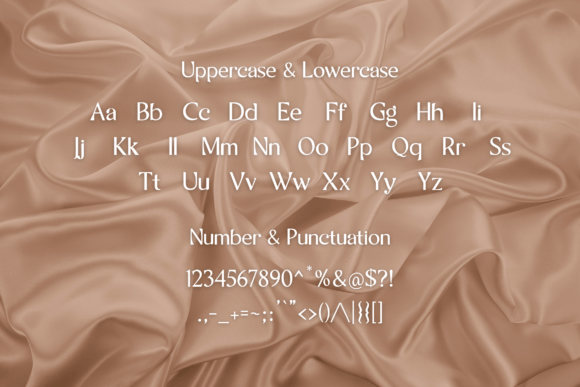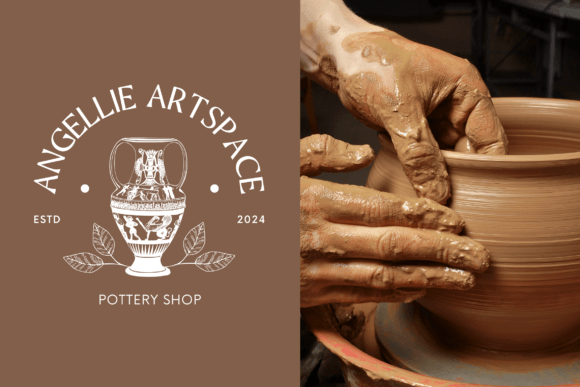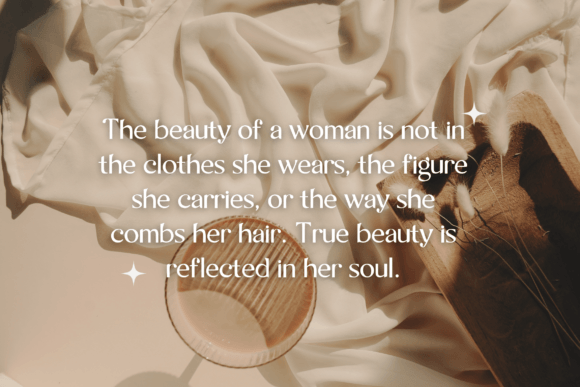
Introducing Angellie: The Epitome of Elegance in Modern Display Fonts
In the realm of typography, few fonts manage to capture the essence of elegance and sophistication as effectively as Angellie. This stylish, modern display font is a masterpiece of design, boasting sleek lines and graceful curves that make it an ideal choice for high-end branding, editorial designs, and luxury packaging. With Angellie, every letter is not just a character, but a work of art, designed to elevate your projects to new heights of refinement and charm.
The Design Philosophy Behind Angellie
Angellie was crafted with a clear vision: to create a font that embodies the perfect blend of modernity and classic elegance. Its design is characterized by a meticulous attention to detail, ensuring that each letterform is not only aesthetically pleasing but also highly legible. The font’s sleek lines and fluid curves work in harmony to create a sense of movement and grace, making Angellie a versatile choice for a wide range of design applications.
Applications of Angellie: Where Elegance Meets Versatility
One of the key strengths of Angellie is its versatility. This modern display font can be seamlessly integrated into various design projects, including:
- High-End Branding: Use Angellie to create luxurious brand identities that exude sophistication and elegance. From logos to packaging, Angellie can help elevate your brand’s visual presence.
- Editorial Designs: Add a touch of refinement to your editorial projects, such as magazines, newspapers, and digital publications. Angellie’s stylish letterforms are sure to capture the attention of your readers.
- Luxury Packaging: Make a lasting impression with your product packaging. Angellie’s elegant design makes it perfect for high-end product labels, boxes, and promotional materials.
Why Choose Angellie?
In a world where first impressions are crucial, Angellie offers a distinct advantage. Here are a few reasons why designers and crafters are gravitating towards this beautiful font:
- Unique Aesthetic: Angellie boasts a unique blend of modern flair and classic elegance, setting it apart from more traditional fonts.
- High Legibility: Despite its decorative nature, Angellie remains highly legible, making it suitable for both headlines and body text.
- Versatility: Whether you’re working on digital projects or print materials, Angellie adapts beautifully, ensuring your designs always look their best.
Tips for Using Angellie Effectively
To make the most of Angellie, consider the following tips:
- Pair with Neutrals: Let Angellie be the star of your show by pairing it with neutral fonts that complement its elegance without overpowering it.
- Experiment with Colors: Angellie looks stunning in metallic colors, pastels, and rich jewel tones. Don’t be afraid to experiment and find the perfect color scheme for your design.
- Play with Ligatures: Take advantage of Angellie’s ligatures to add an extra layer of sophistication to your typography.
Angellie is more than just a font; it’s a design statement. Its elegant lines, sophisticated charm, and versatility make it an invaluable asset for designers and crafters looking to elevate their projects. Whether you’re aiming to create a luxurious brand identity, a captivating editorial design, or stunning luxury packaging, Angellie is the perfect choice. Embrace the elegance and flair of Angellie, and watch your designs transform into works of art.